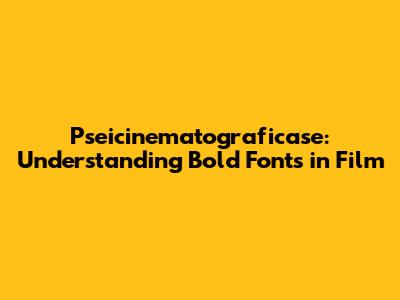
Pseicinematograficase: Understanding Bold Fonts In Film
Let's dive into the world of pseicinematograficase and how it intertwines with the use of bold fonts in film! Guys, ever notice how certain words or phrases just pop out at you in movie posters or opening credits? That's often the magic of bold fonts at work. But there's so much more to it than just making things look flashy. It's about grabbing attention, setting the tone, and conveying specific messages, all while adhering to the principles of pseicinematograficase. This concept, though it sounds super complex, essentially boils down to the artistic and technical elements that make a film visually compelling and meaningful. When we talk about fonts, especially bold ones, we're talking about a key component of visual storytelling.
Think about the iconic movie posters you've seen. The title is almost always in a bold font, right? That's because the studio wants you to remember the name of the movie. They want it to stick in your head. Bold fonts are excellent for creating a strong, lasting impression. They can evoke feelings of power, intensity, or even playfulness, depending on the style of the font itself. Consider the difference between a bold, blocky sans-serif font and a bold, elegant serif font. The former might be used for an action movie to convey strength and impact, while the latter could be used for a historical drama to suggest sophistication and tradition. It’s not just about being bold; it’s about being strategically bold within the framework of pseicinematograficase.
Moreover, bold fonts play a critical role in guiding the viewer's eye. In a visually cluttered environment, such as a busy movie poster, bold text acts as a beacon, drawing your attention to the most important information. This is where understanding the principles of pseicinematograficase becomes invaluable. It's not just about choosing a font that looks cool; it's about understanding how that font contributes to the overall visual composition and narrative. The size, weight, and style of the bold font must work in harmony with the other visual elements, such as the images, colors, and layout, to create a cohesive and impactful design. Furthermore, the use of bold fonts can extend beyond just titles and credits. They can be incorporated into subtitles or on-screen text to emphasize key dialogue or provide important context. Imagine a scene where a character whispers a crucial piece of information. Using a bold font for the subtitle can help to ensure that the audience doesn't miss it, even if they're struggling to hear the dialogue clearly. This subtle technique can significantly enhance the viewing experience and ensure that the narrative is effectively communicated. The power of bold fonts, when wielded correctly within the context of pseicinematograficase, is undeniable.
The Power of Font Choice
Choosing the right font, especially a bold one, is a crucial decision that falls squarely within the realm of pseicinematograficase. It's not just about aesthetics; it's about communication. The font you select can influence how the audience perceives the film, its genre, and its overall message. A poorly chosen font can be distracting or even undermine the film's credibility. A well-chosen bold font, on the other hand, can enhance the viewing experience and leave a lasting impression. Think of it as the voice of your movie, speaking to the audience before the first scene even begins. The font should resonate with the film's themes, characters, and target audience. Is it a serious drama, a lighthearted comedy, or a thrilling action flick? The font should reflect that.
Consider the psychological impact of different font styles. Serif fonts, with their small decorative strokes, often convey a sense of tradition, authority, and elegance. They might be appropriate for historical dramas, period pieces, or films that aim for a classic, timeless feel. Sans-serif fonts, on the other hand, are cleaner, more modern, and more minimalist. They tend to evoke feelings of innovation, efficiency, and clarity. They might be a better choice for science fiction films, thrillers, or documentaries that aim to present information in a straightforward manner. Bold fonts amplify these characteristics, making them even more pronounced. A bold serif font becomes even more authoritative, while a bold sans-serif font becomes even more assertive. Within the framework of pseicinematograficase, this understanding of font psychology is essential for making informed design decisions. It's about understanding how fonts can influence the audience's emotional response and using that knowledge to enhance the film's overall impact.
Furthermore, the legibility of the font is paramount. No matter how stylish or visually appealing a font may be, it's useless if the audience can't read it. This is especially important when dealing with bold fonts, as excessive boldness can sometimes make letters appear crowded or blurry. The font should be clear, crisp, and easy to read, even at a distance or on a small screen. Consider the target audience and their visual acuity. Are they likely to be viewing the film on a large television screen or a small mobile device? The font should be optimized for the intended viewing environment. In addition to legibility, consider the cultural connotations of different fonts. Some fonts may be associated with specific cultures or historical periods. Using a font that is inappropriate for the film's setting or subject matter can be jarring or even offensive. For example, using a font that is heavily associated with Western culture in a film that is set in Asia could be seen as insensitive or disrespectful. Within the principles of pseicinematograficase, cultural sensitivity is an important consideration. The font should be chosen in a way that respects the film's cultural context and avoids any unintentional misinterpretations. Ultimately, the choice of font is a complex decision that requires careful consideration of aesthetics, psychology, legibility, and cultural sensitivity. By understanding these factors and applying them within the framework of pseicinematograficase, filmmakers can use fonts to enhance their films and communicate more effectively with their audiences.
Examples in Cinema
Let's look at some real-world examples to see how bold fonts are used effectively (or not!) in cinema, all while keeping pseicinematograficase in mind. Think about the opening credits of classic films. Often, you'll see a bold font used to display the title, director, and key cast members. This is a standard practice, but the specific font choice can vary widely depending on the film's genre and style. For example, the Star Wars saga famously uses a bold, futuristic font that immediately establishes the film's science fiction setting. The font is clean, modern, and slightly angular, which conveys a sense of technological advancement and otherworldly adventure. The boldness of the font ensures that it stands out against the backdrop of space, grabbing the audience's attention and setting the stage for the epic story that is about to unfold. This is a prime example of pseicinematograficase at work, where the visual elements are carefully chosen to enhance the narrative and create a specific atmosphere.
On the other hand, consider the movie Pulp Fiction. This film uses a variety of fonts in its opening credits, including a bold, retro-style font that evokes the pulp magazines of the mid-20th century. The font is quirky, playful, and slightly offbeat, which reflects the film's unconventional storytelling and its embrace of pop culture references. The boldness of the font ensures that it is easily readable, even amidst the film's fast-paced editing and eclectic soundtrack. This is another example of pseicinematograficase, where the visual elements are used to create a specific mood and to hint at the film's themes and style. Notice how the font choices aren't just random; they're deliberate and meaningful, contributing to the overall artistic vision of the film.
But it's not just about opening credits. Bold fonts can also be used effectively in on-screen text, such as subtitles or title cards. For example, in a foreign film, bold subtitles can help to improve readability and ensure that the audience doesn't miss any important dialogue. The boldness of the font can also be used to emphasize key words or phrases, drawing the viewer's attention to the most important information. Similarly, in a documentary film, bold title cards can be used to introduce different sections or to provide context for the footage that is being shown. The boldness of the font can help to create a clear visual hierarchy, making it easier for the audience to follow the film's narrative. However, it's important to use bold fonts sparingly and strategically. Overusing bold fonts can be distracting and can diminish their impact. The key is to use them in a way that enhances the viewing experience, not detracts from it. Understanding the principles of pseicinematograficase can help filmmakers to make informed decisions about when and how to use bold fonts effectively. By carefully considering the film's genre, style, and target audience, filmmakers can use bold fonts to enhance their films and communicate more effectively with their viewers.
So, there you have it, guys! The world of pseicinematograficase and bold fonts in film is a fascinating one. It's all about understanding how visual elements can be used to enhance storytelling and create a specific mood. Bold fonts, when used correctly, can be a powerful tool for grabbing attention, setting the tone, and conveying important messages. But it's not just about choosing a font that looks cool; it's about understanding how that font contributes to the overall visual composition and narrative. By considering factors such as font psychology, legibility, and cultural sensitivity, filmmakers can use bold fonts to enhance their films and communicate more effectively with their audiences.
Remember, the next time you're watching a movie, pay attention to the fonts that are being used. Notice how they make you feel and how they contribute to the overall viewing experience. You might be surprised at how much thought and effort goes into choosing the right font. And who knows, maybe you'll even be inspired to use bold fonts in your own creative projects! Keep exploring, keep learning, and keep experimenting with the power of visual communication. The world of pseicinematograficase is vast and ever-evolving, so there's always something new to discover. Embrace the challenge and have fun with it! This knowledge will help you in your future projects involving film. Whether it's a passion project or a professional assignment, understanding how design choices shape your output. Happy creating!